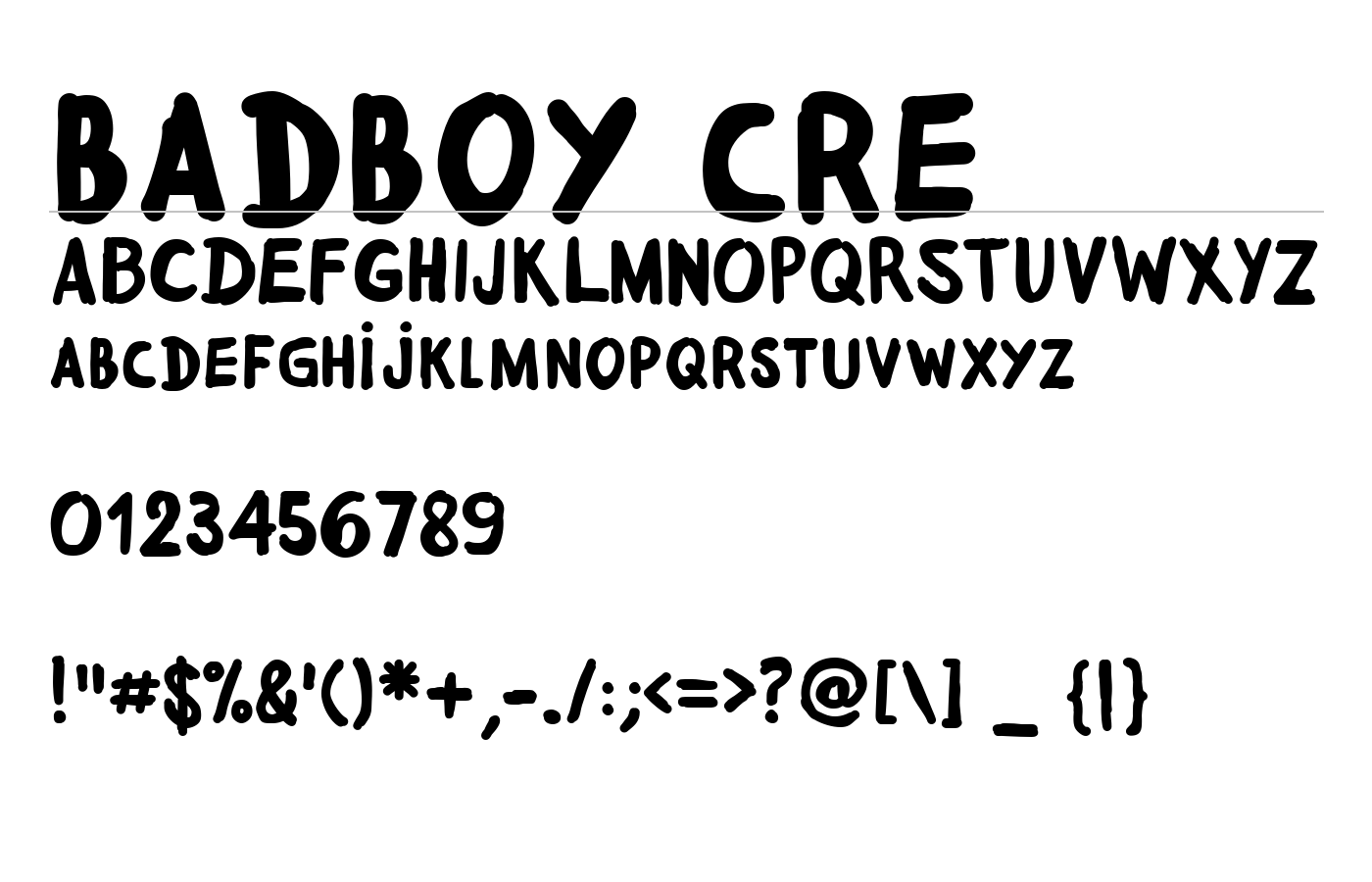
Badboy cre is a playful, hand-drawn sans serif font with bold, rounded strokes and a casual, slightly irregular style that feels lively and approachable. Its uneven letterforms and friendly curves make it perfect for fun, informal designs like children’s books, posters, or branding that wants to convey energy and warmth. This font works well in headlines or display uses where a quirky, handmade touch is desired.
badboy cre Font